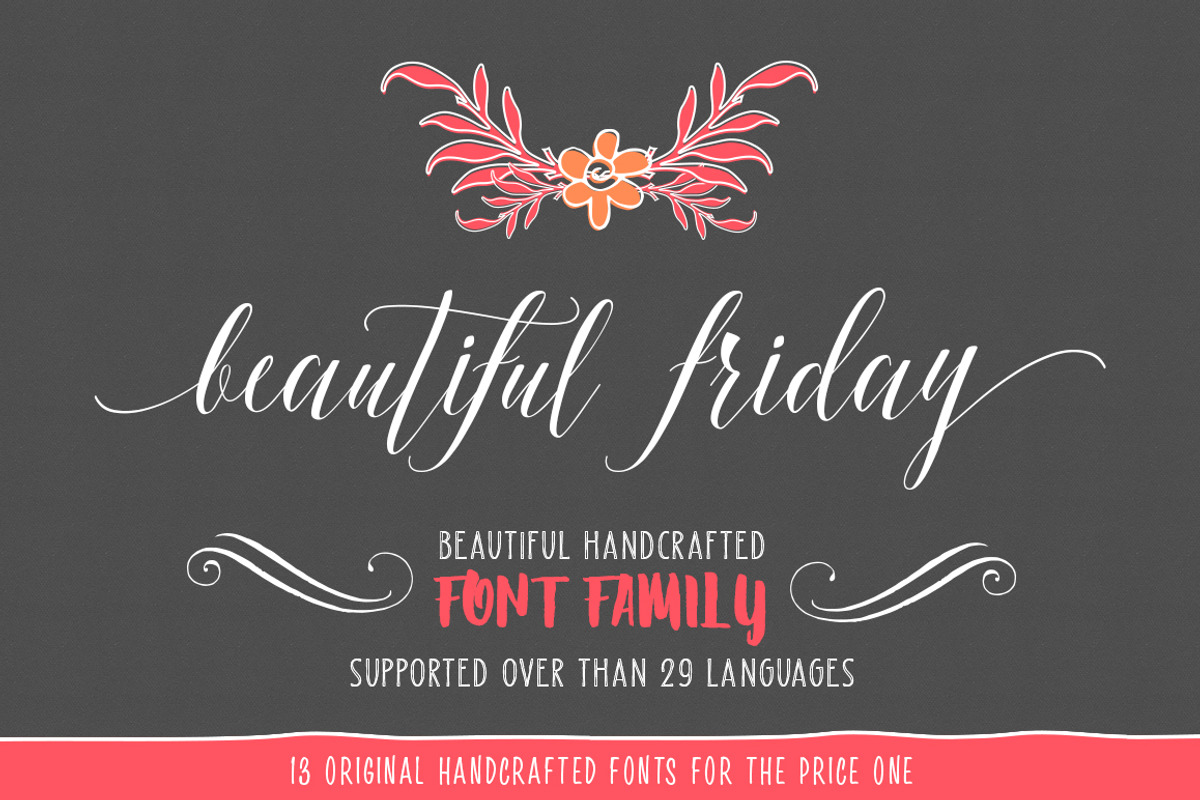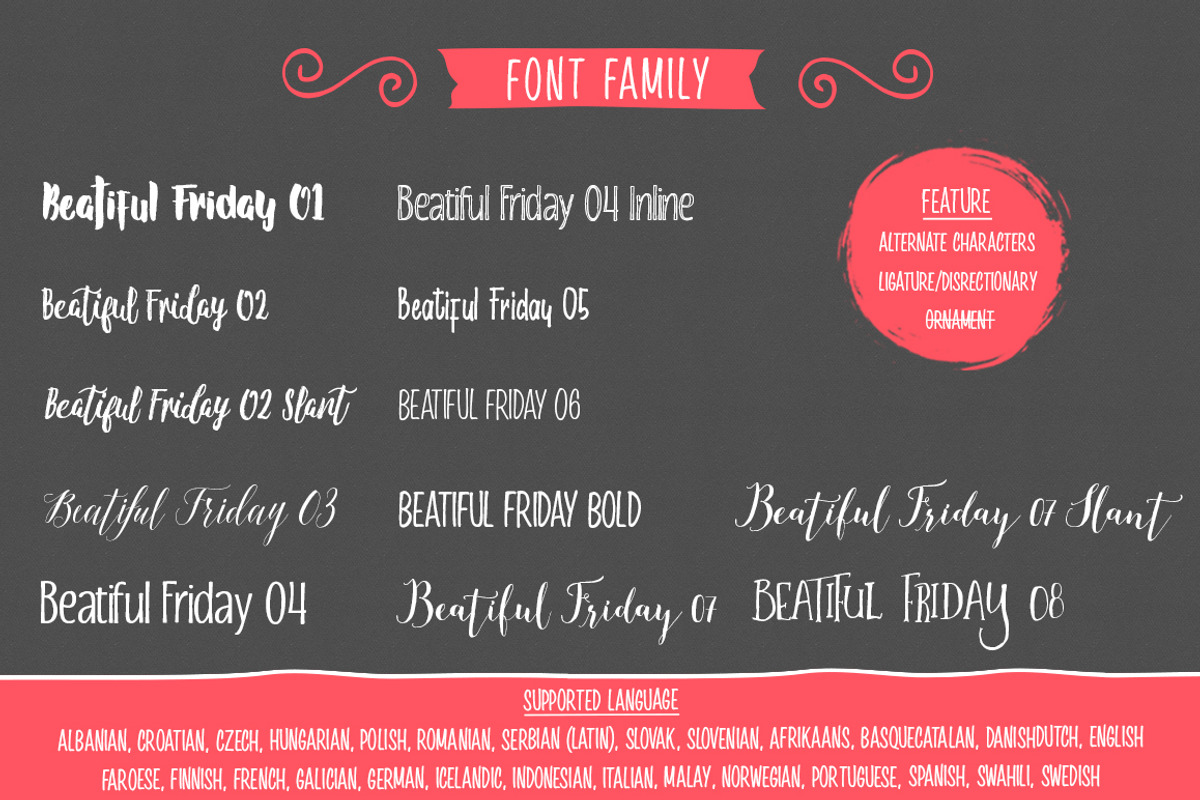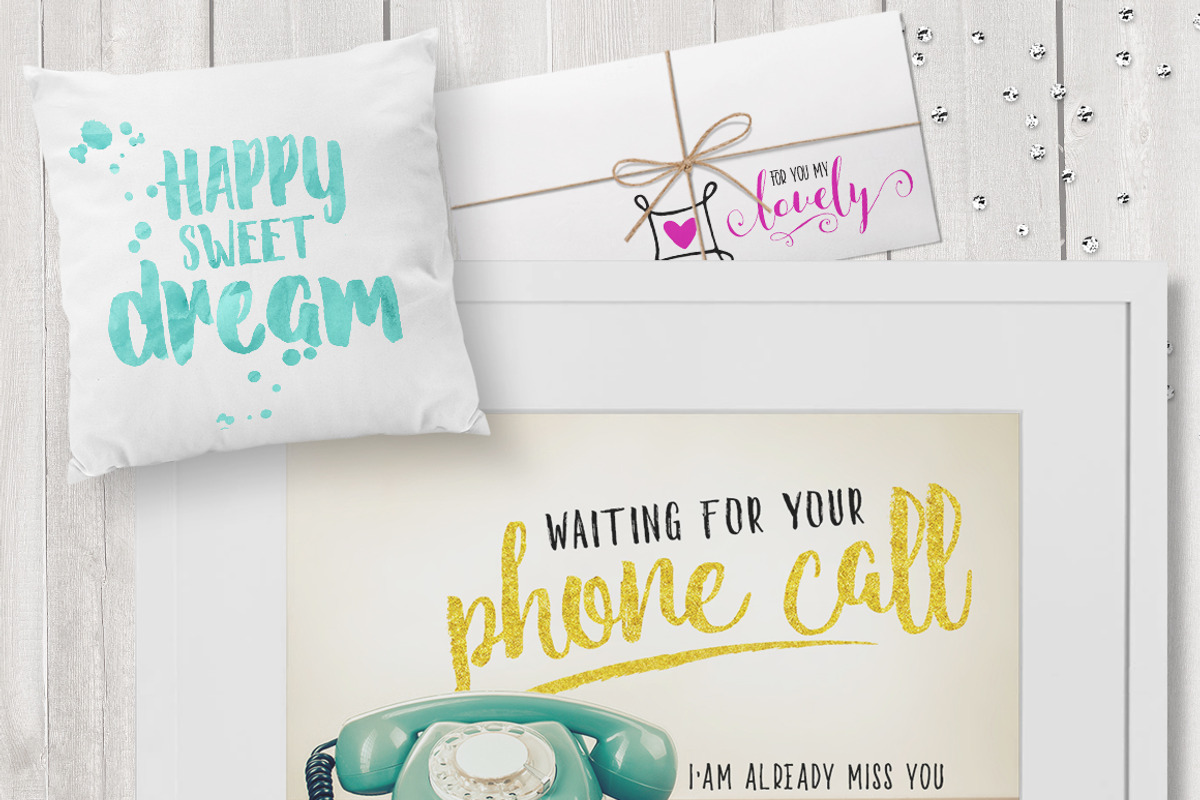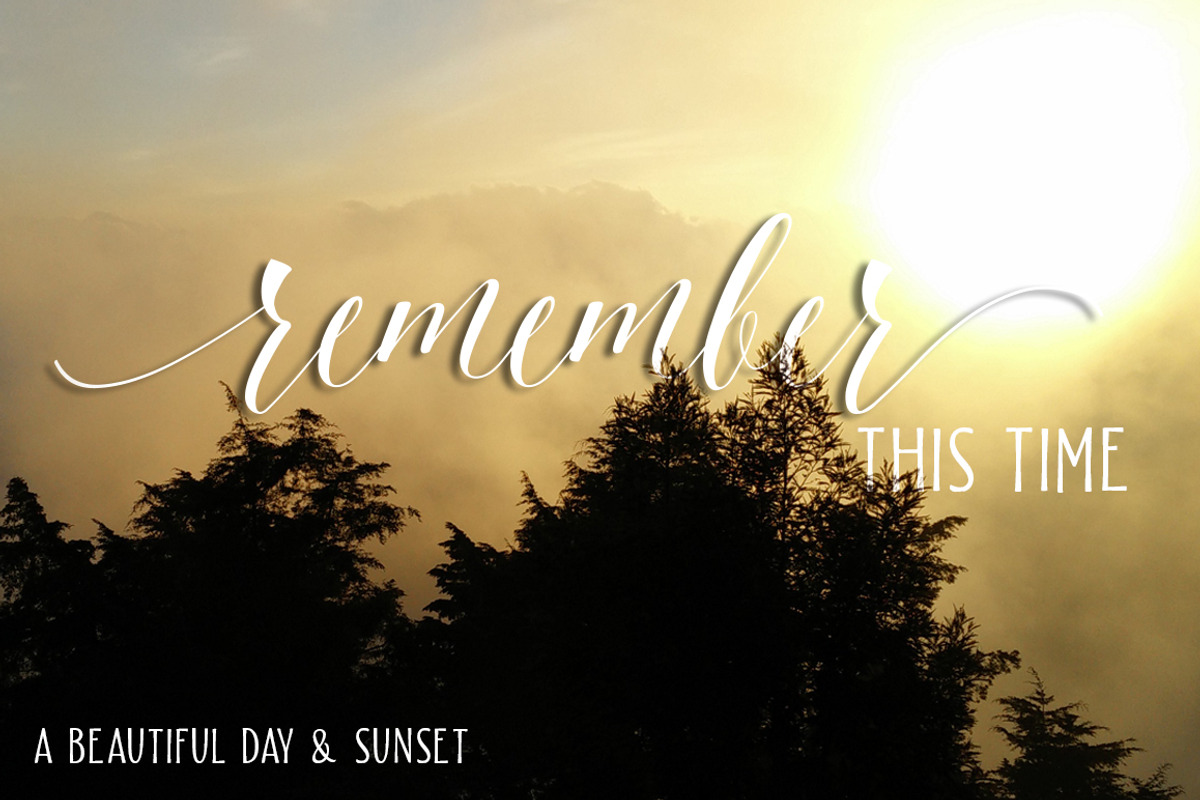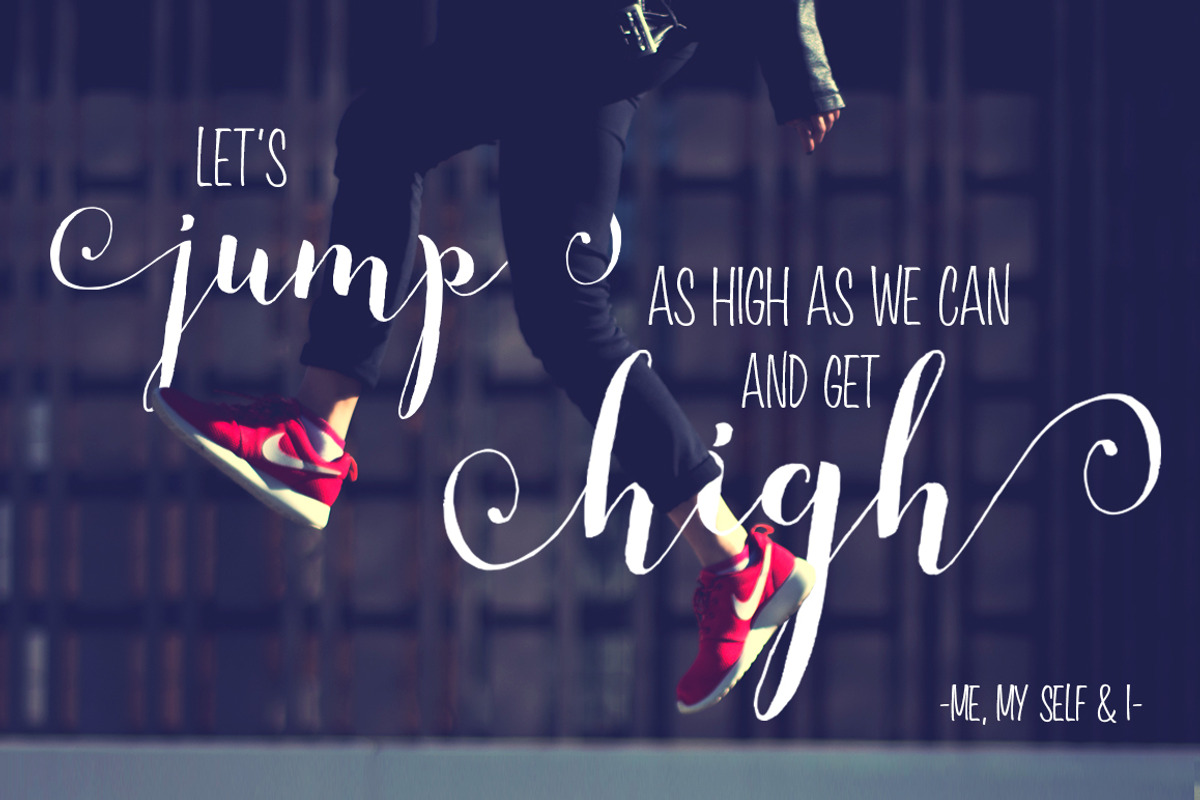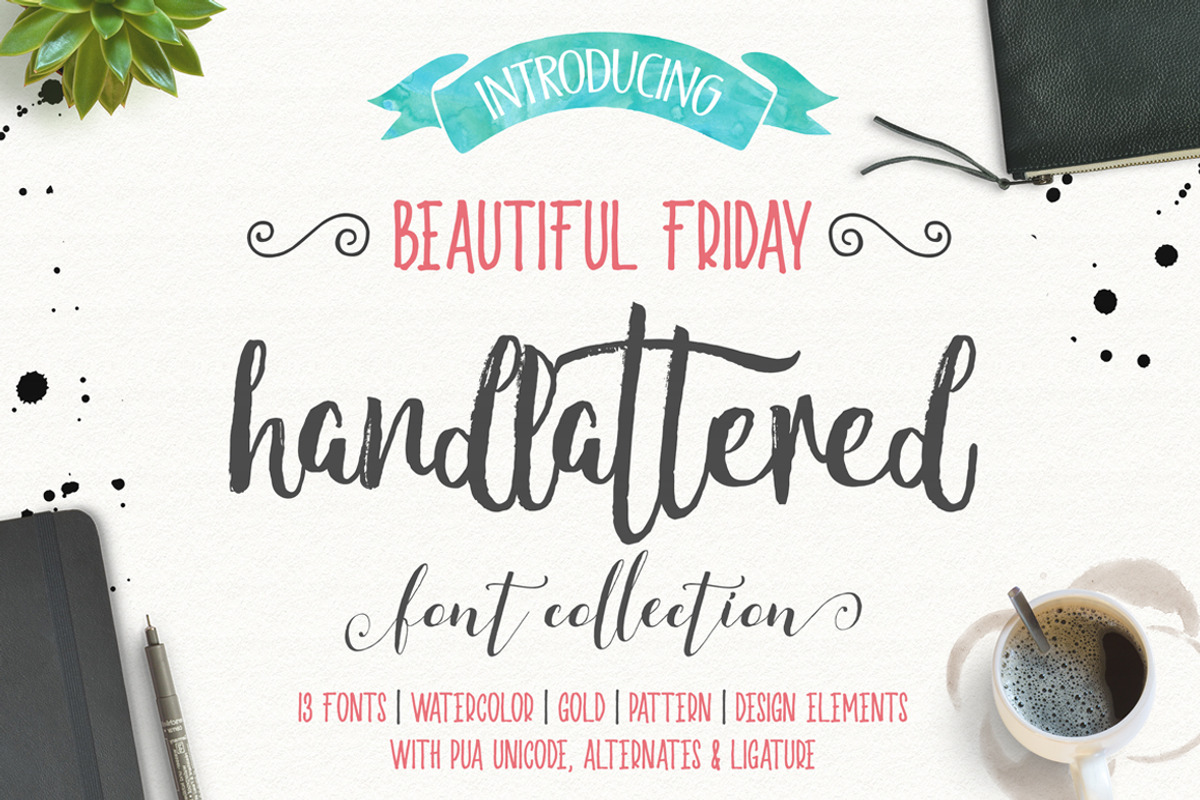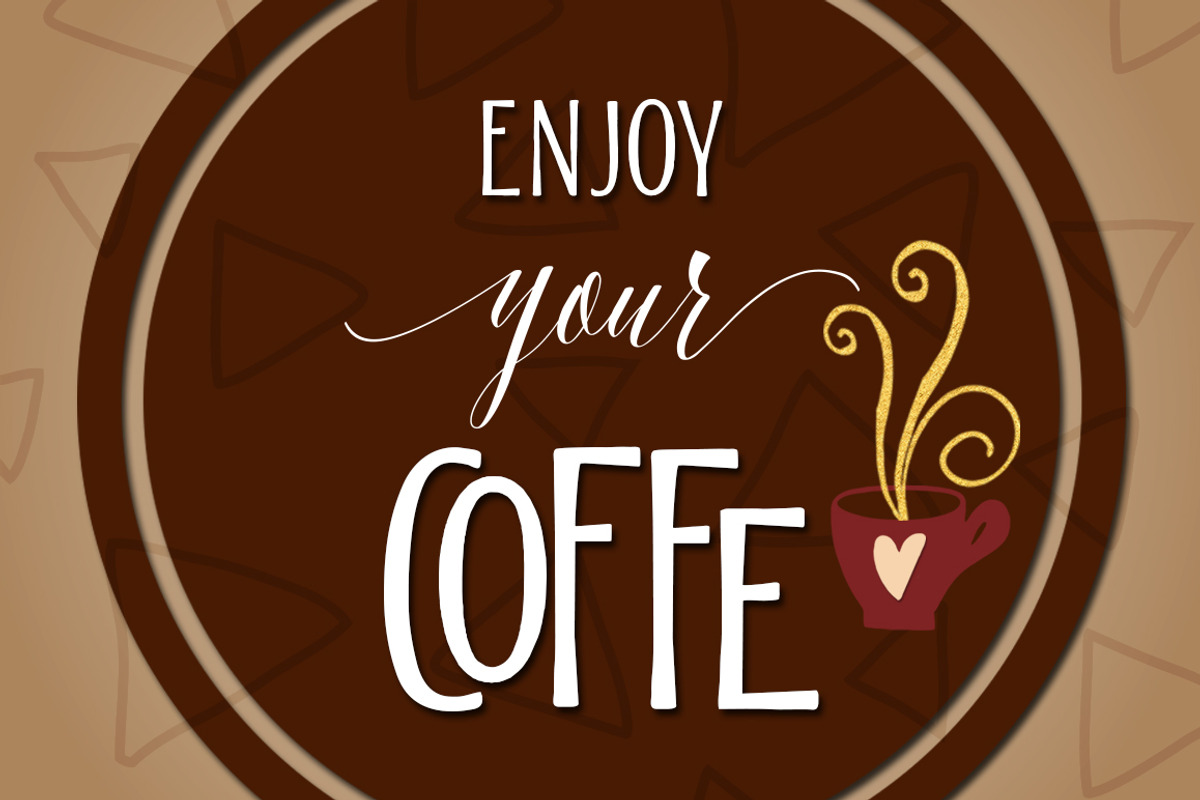
Beautiful Friday (13 Fonts & Extras)
Beautiful Friday (13 Fonts & Extras) by Ryan Prasetya is a font selected for branding, posters, packaging, typography.
- Included 13 handmade fonts from script, brush, brush script and fancy.